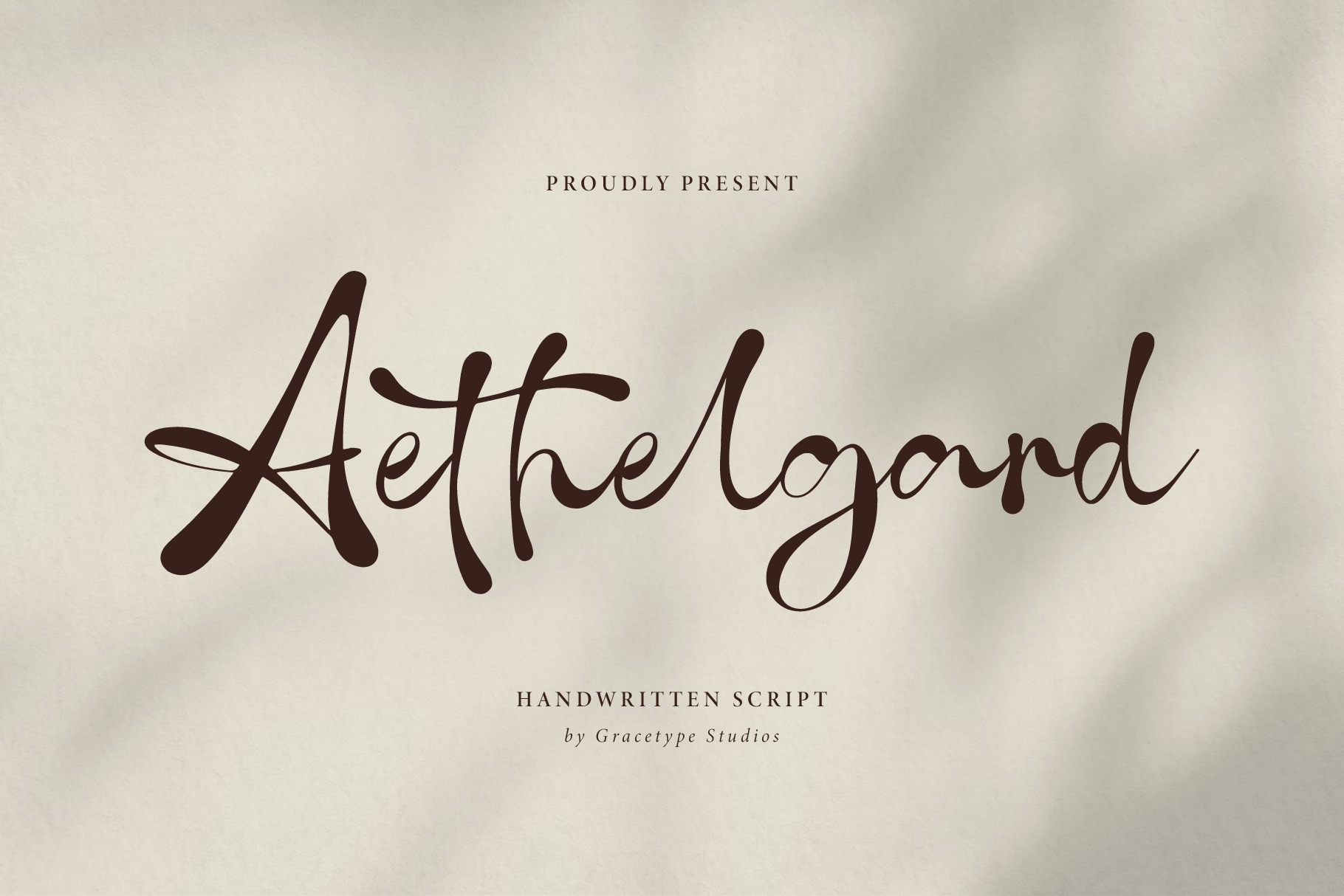
Aethelgard – Handwritten Script Font
Aethelgard – Handwritten Script Font is a flexible and reliable font created to fit multiple design needs, from branding and packaging to social media and editorial layouts. Aethelgard | Handwritten Script, from Gracetypestudio, suitable for any projects such as: logos, branding projects, homeware designs, product packaging, mugs, quotes, posters, shopping bags, t-shirts, book covers, name card, invitation cards, greeting cards, label, photography, watermark, special events, and all your other lovely projects that need a Script taste.
Standard glyphs
Alternate and Ligature
Fonts include multilingual support